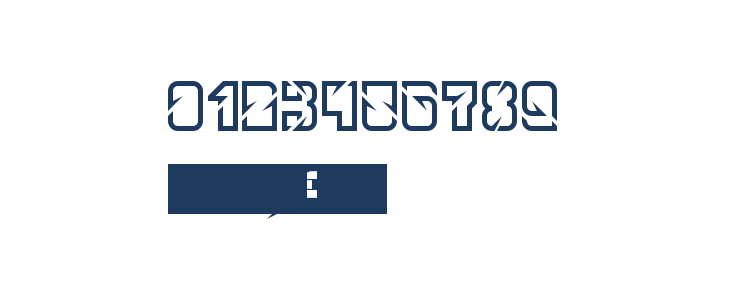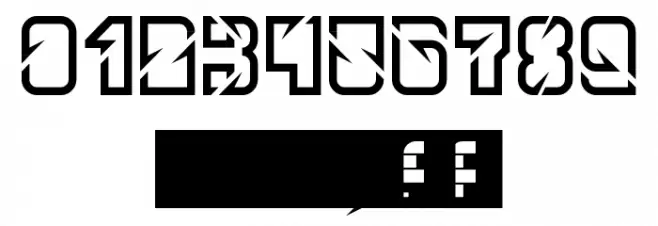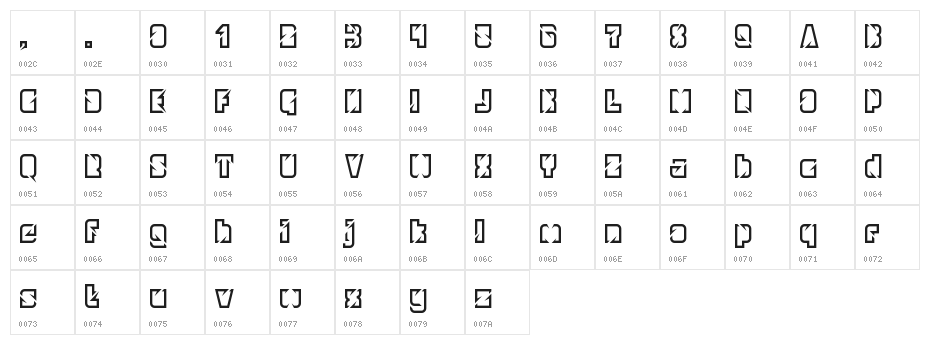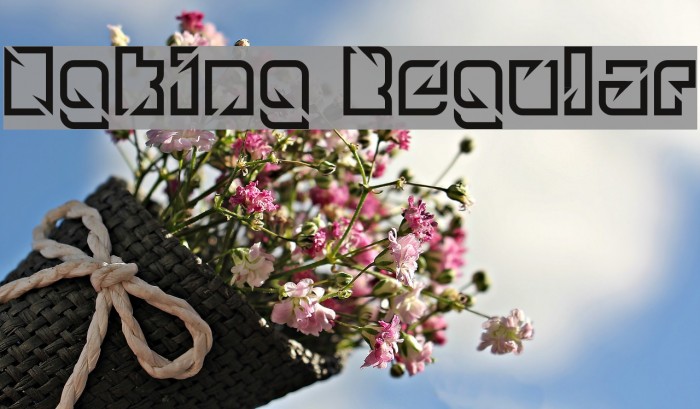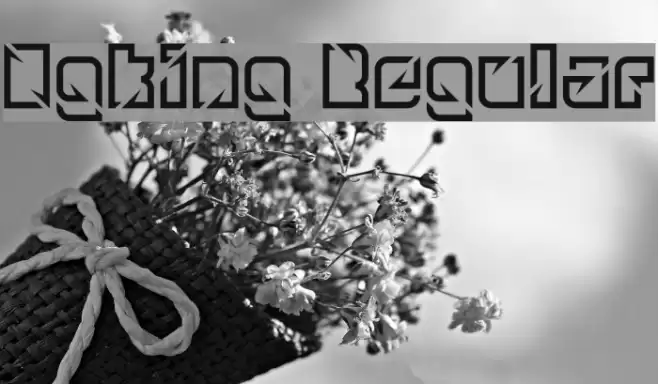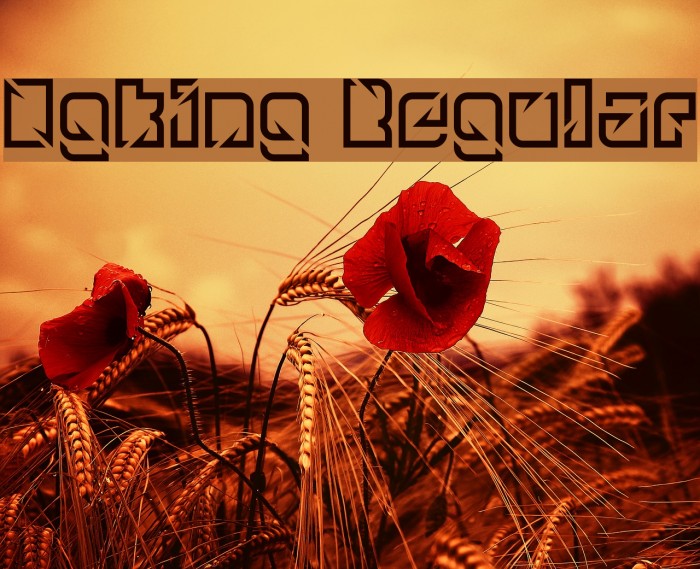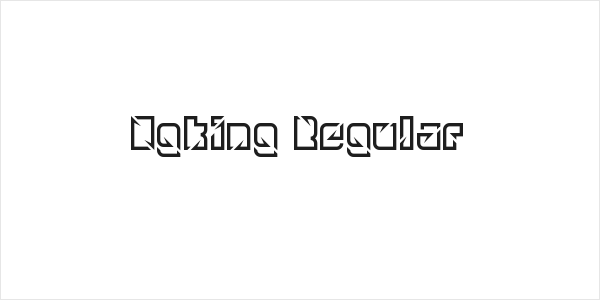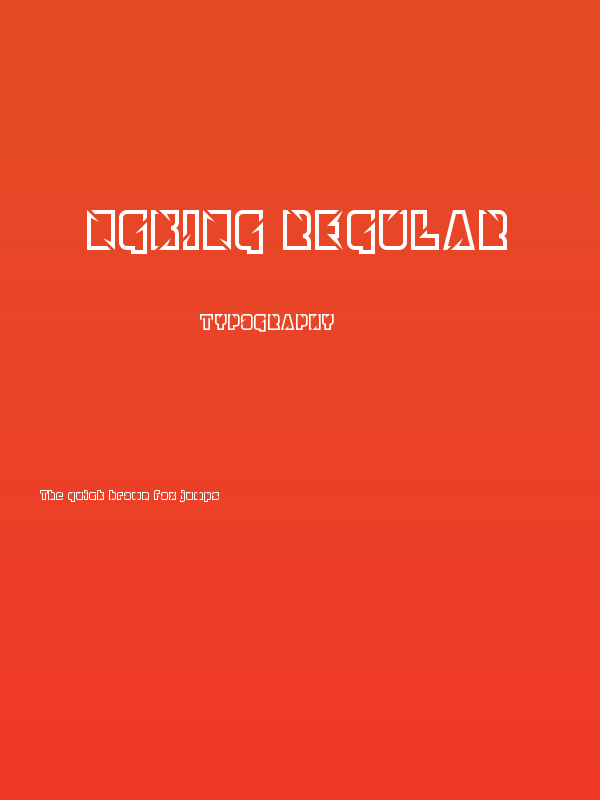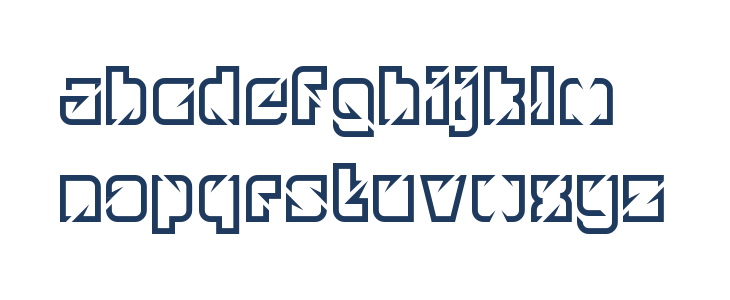
Ngking Regular Font
Ngking Regular Description
This font features a bold, geometric design with sharp angles and a distinct, futuristic aesthetic. The characters are constructed with thick lines and angular cuts, creating a dynamic and edgy appearance. The uppercase and lowercase letters maintain a consistent style, with a strong emphasis on symmetry and balance. Numbers and special characters follow the same design principles, ensuring uniformity across all glyphs. The font's unique style makes it stand out, offering a modern and innovative look that is both eye-catching and memorable.
| Proposed Projects | Ideal for branding, posters, album covers, and any project requiring a modern, edgy look. |